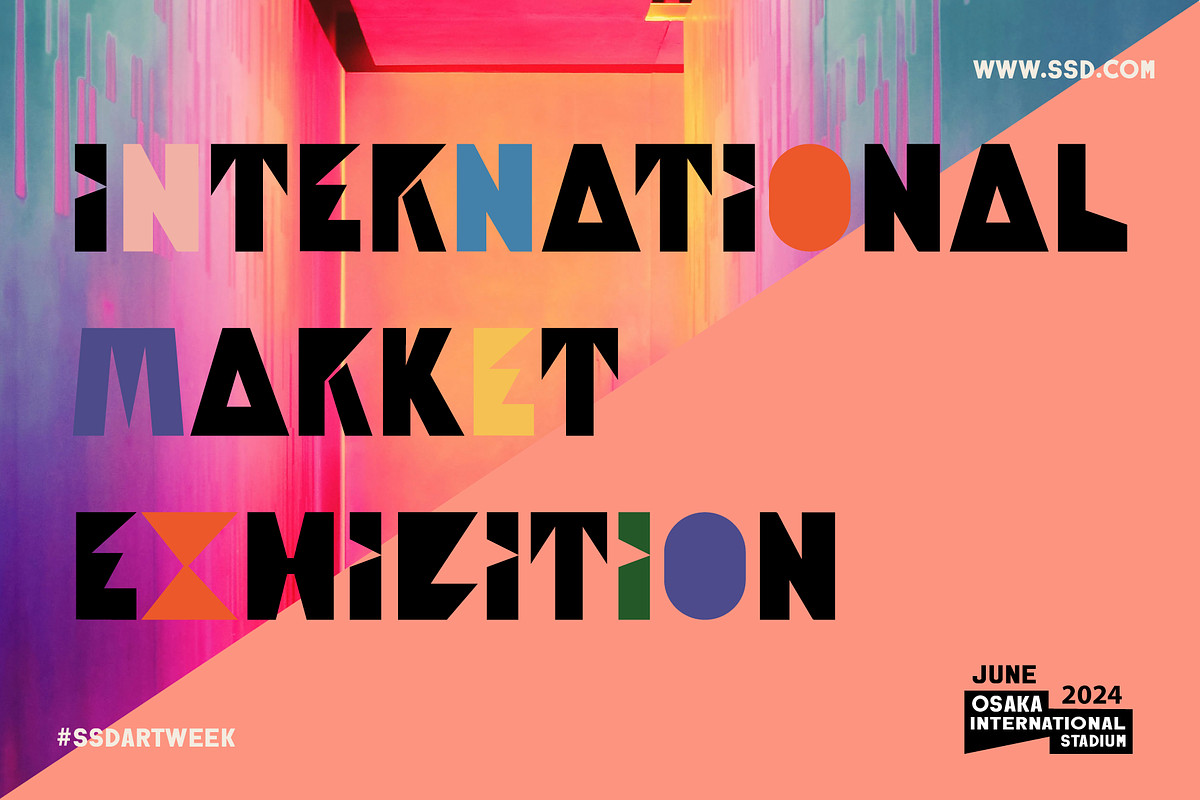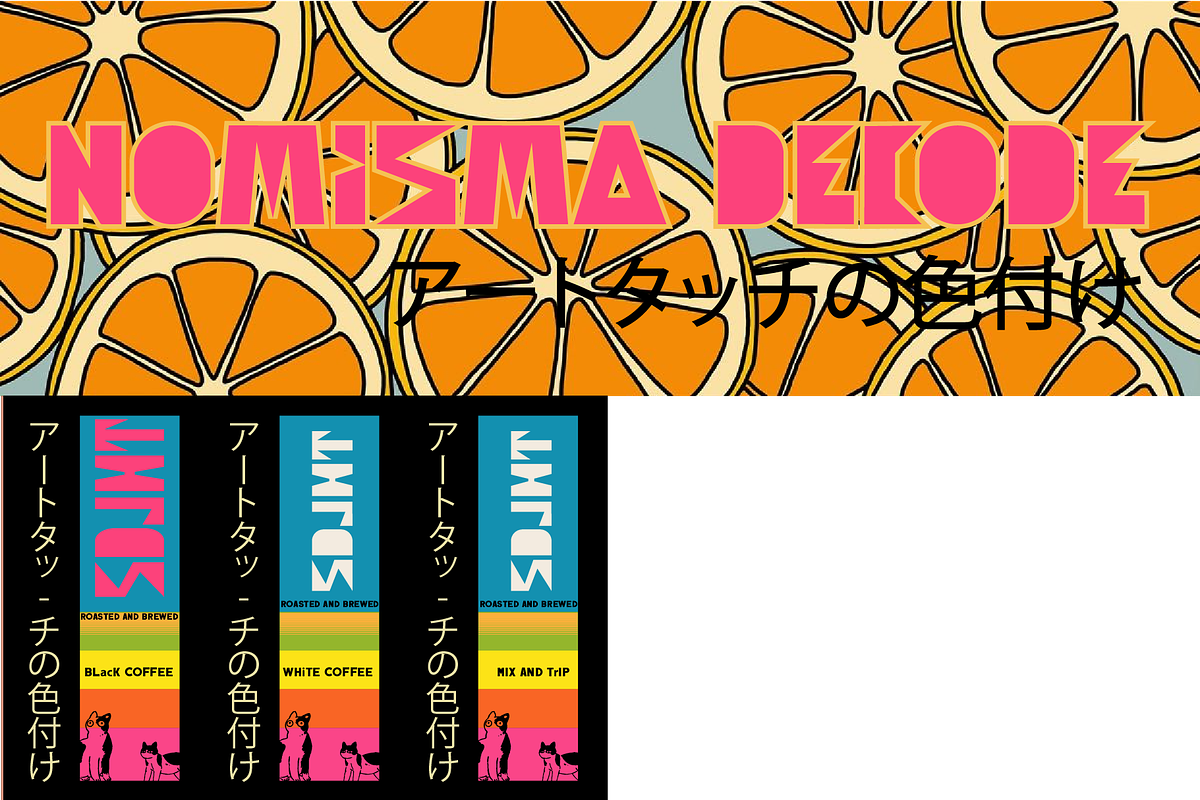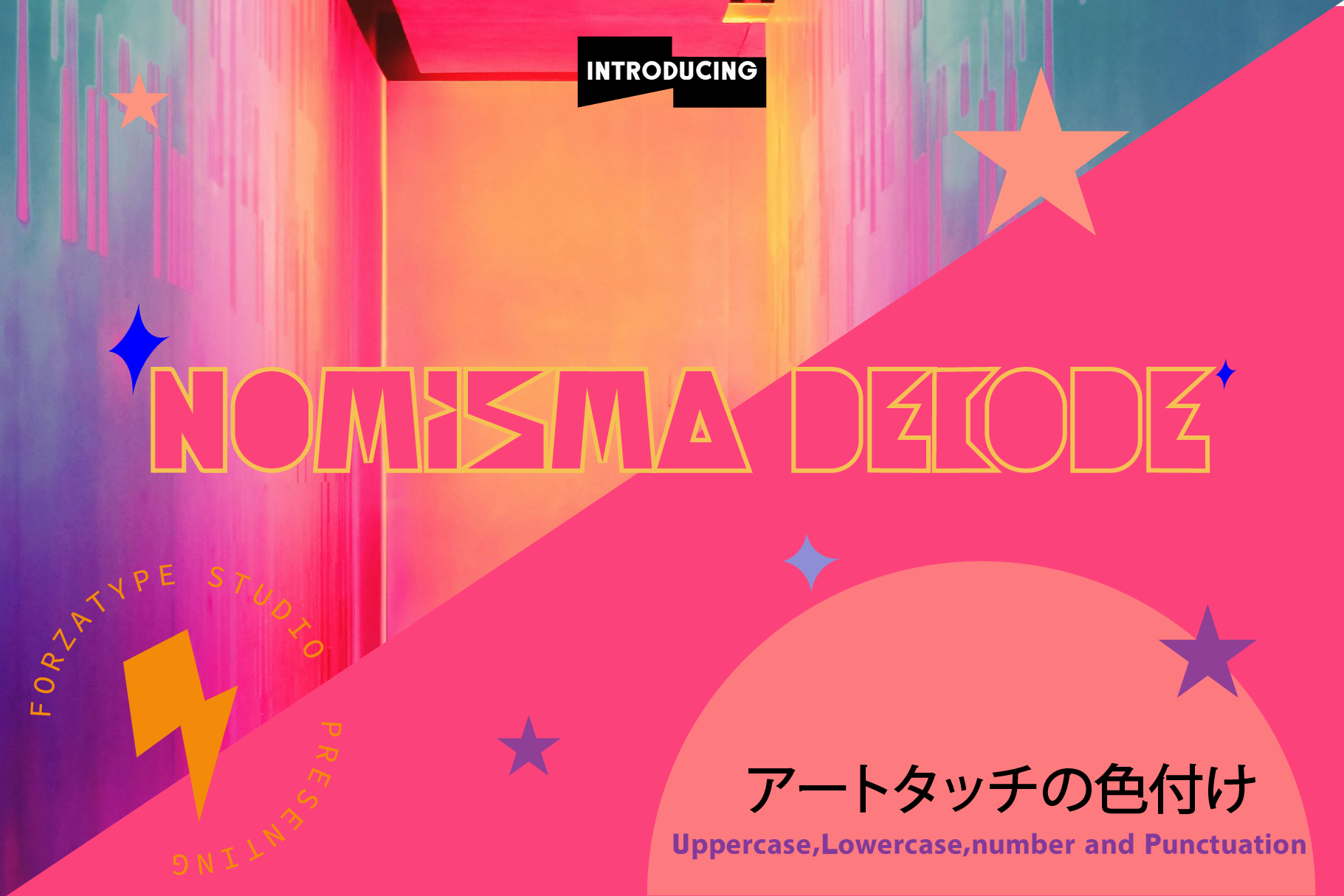
Nomisma Decode font
Decode Nomisma is a font created from creativity with references to 80's automotive writing, with a touch of sharp angles that add an alluring appeal, blending perfectly with the musical concept. This font is ideal for creating displays or promotional materials, giving designs a charming appeal. Starter displays only uppercase letters, lowercase letters, symbols, and numbers, making it suitable for automotive advertising, album covers, and any design you need to support your marketing and business